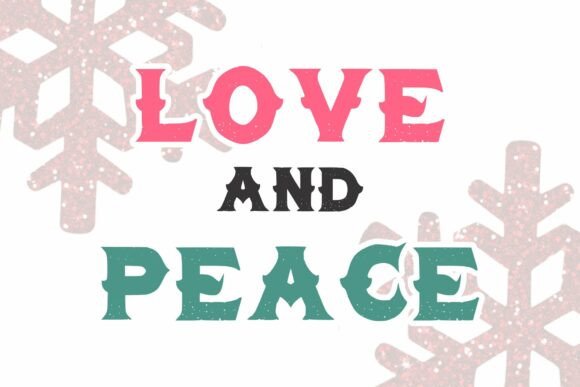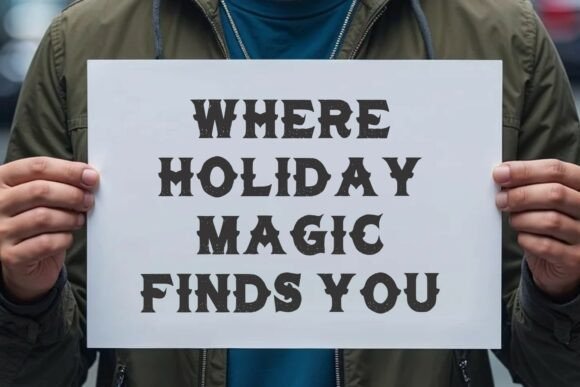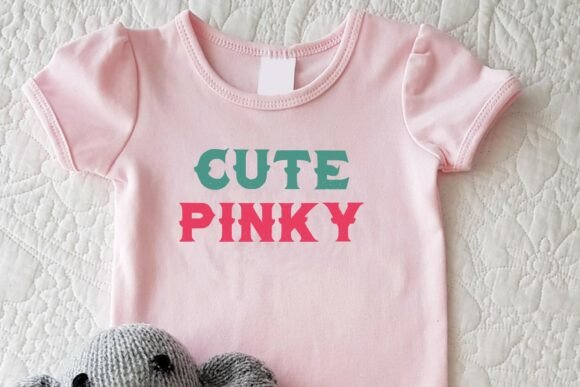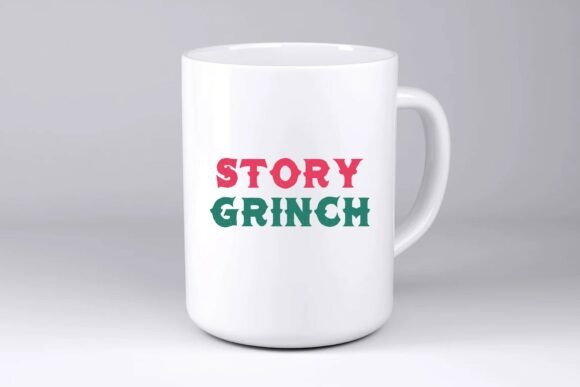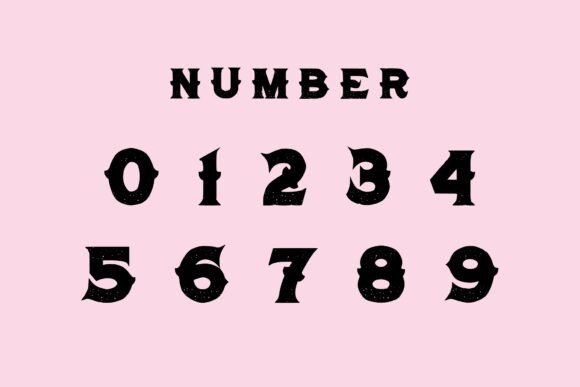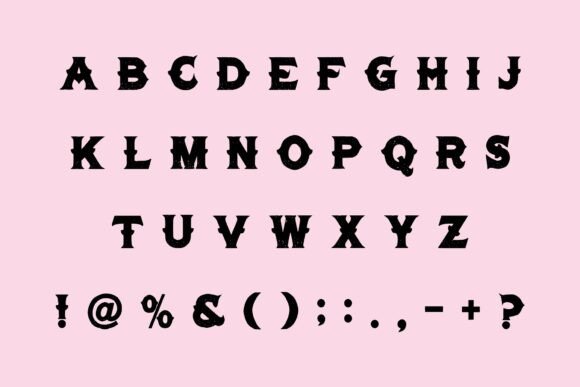
Introducing Gliter Grinchmas Font: The Ultimate Christmas Retro Decorative Font
Are you looking for a font that captures the essence of Christmas nostalgia? Do you want to add a touch of retro charm to your designs, greeting cards, or craft projects? Look no further than Gliter Grinchmas Font, a fun and decorative font that’s reminiscent of colorful chalk writing on a chalkboard.
What is Gliter Grinchmas Font?
Gliter Grinchmas Font is a Christmas retro and fun decorative font that’s perfect for adding a dash of nostalgia to your designs. Its unique, chalkboard-inspired style evokes memories of childhood and the magic of the holiday season. Whether you’re a designer, crafter, or DIY enthusiast, this font is sure to become your go-to choice for a wide range of projects.
Gliter Grinchmas Font is incredibly versatile and can be used for a variety of projects, including:
- Back-to-school themes: Add a touch of nostalgia to your school-themed designs, such as chalkboard-inspired posters, flyers, or worksheets.
- Birthday cards: Create personalized and unique birthday cards that are sure to delight kids and adults alike.
- Children’s lettering: Use Gliter Grinchmas Font to create fun and engaging lettering for kids’ projects, such as certificates, awards, or motivational posters.
- Chalk-inspired designs: Get creative with chalk-inspired designs, such as chalkboard-style art, illustrations, or graphics.
- Holiday greetings: Use Gliter Grinchmas Font to create festive holiday greetings, such as Christmas cards, Thanksgiving cards, or New Year’s Eve invitations.
- Craft ventures: Add a personal touch to your craft projects, such as handmade cards, gift tags, or decorations.
- Kid-centered greeting cards: Create fun and playful greeting cards for kids, such as birthday cards, get-well cards, or congratulations cards.
- Decorations: Use Gliter Grinchmas Font to create festive decorations, such as garlands, banners, or signs.
- Craft projects: Add a touch of personality to your craft projects, such as scrapbooking, journaling, or paper crafting.
- Embroidery: Use Gliter Grinchmas Font as a guide for embroidery projects, such as stitching quotes, phrases, or designs onto fabric.
Why Choose Gliter Grinchmas Font?
So, why choose Gliter Grinchmas Font for your projects? Here are just a few reasons:
- Unique and nostalgic style: Gliter Grinchmas Font has a one-of-a-kind, chalkboard-inspired style that’s sure to evoke memories of childhood and the holiday season.
- Versatile: This font is incredibly versatile and can be used for a wide range of projects, from digital designs to handmade crafts.
- Fun and playful: This font is perfect for adding a touch of whimsy and fun to your designs, making it ideal for kid-centered projects or festive holiday designs.
Tips for Using Gliter Grinchmas Font
Here are a few tips for getting the most out of Gliter Grinchmas Font:
- Experiment with colors: Try pairing Gliter Grinchmas Font with a range of bright, bold colors to create a festive and playful look.
- Add texture: Consider adding texture to your designs, such as a chalkboard-style background or a subtle texture overlay.
- Mix and match: Don’t be afraid to mix and match Gliter Grinchmas Font with other fonts or design elements to create a unique look.
- Get creative: Most importantly, have fun and get creative with Gliter Grinchmas Font! Try out new ideas and experiment with different design techniques.
Gliter Grinchmas Font is a fun and decorative font that’s perfect for adding a touch of Christmas nostalgia to your designs, greeting cards, or craft projects. With its unique, chalkboard-inspired style and versatile design, this font is sure to become a favorite among designers, crafters, and DIY enthusiasts. So why wait? Download Gliter Grinchmas Font today and start creating your own festive and playful designs!